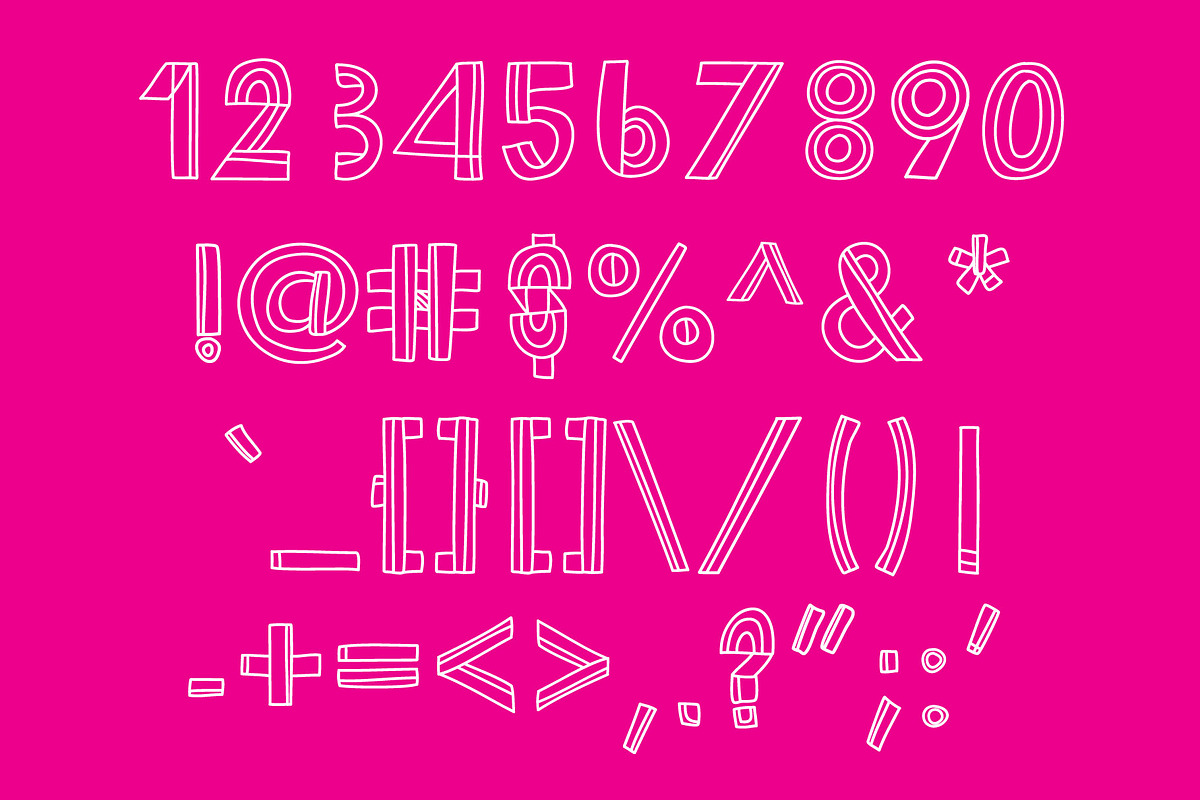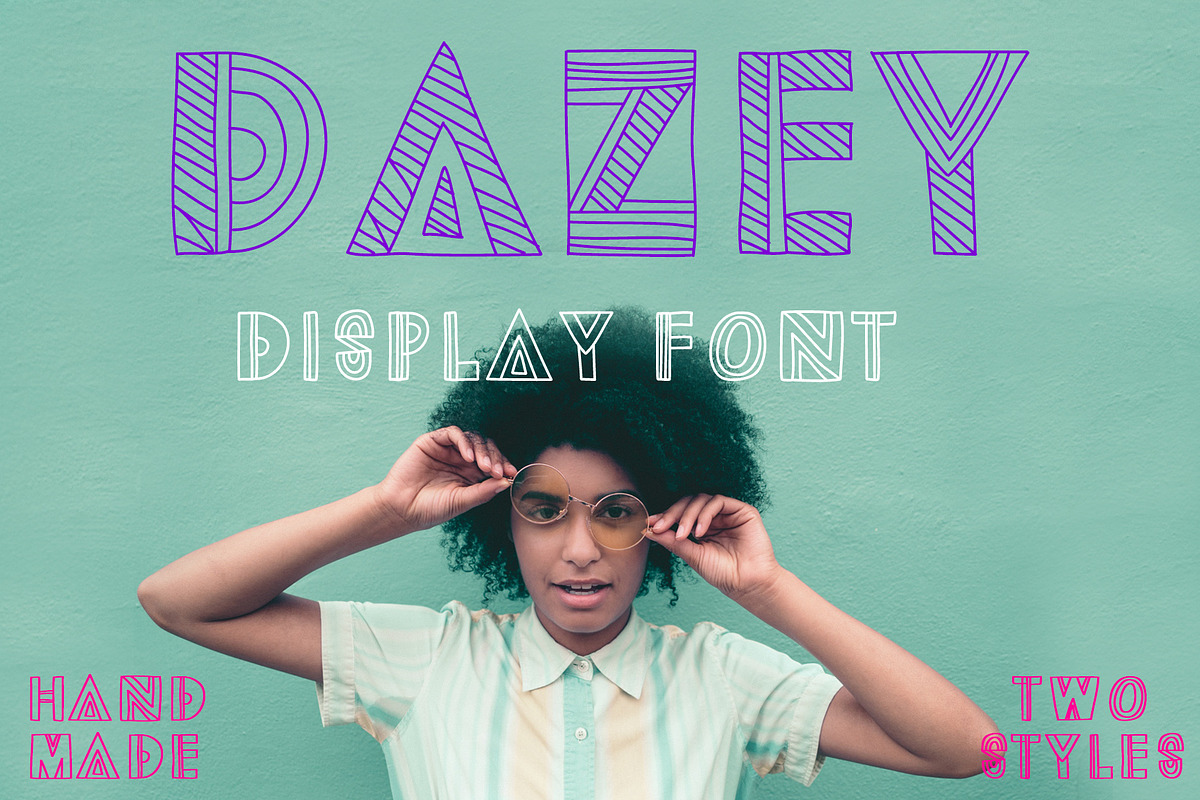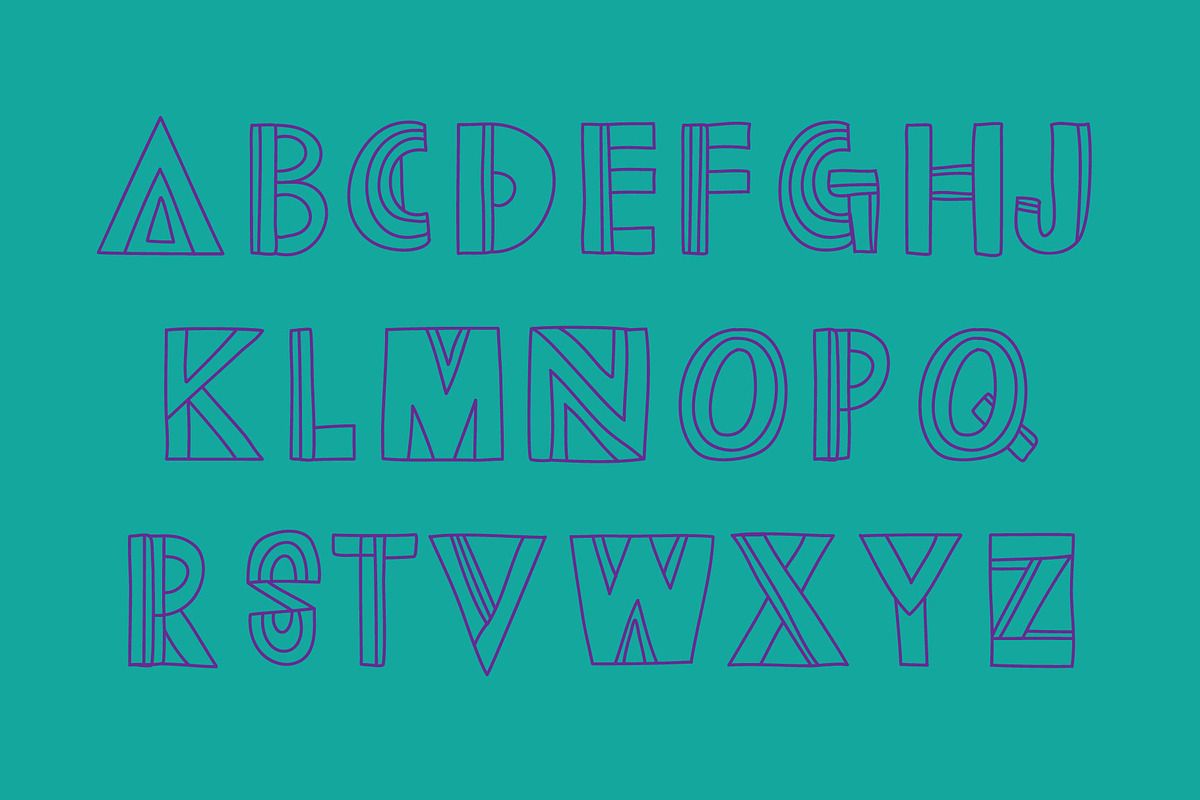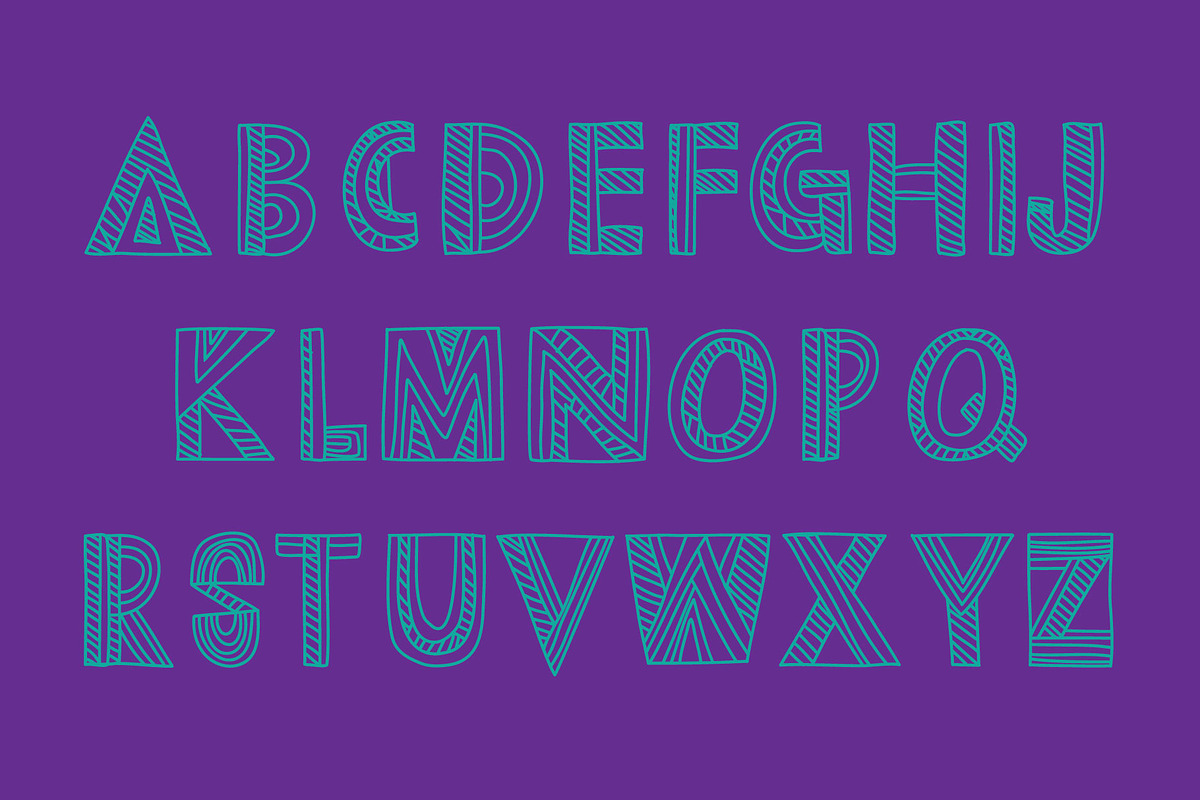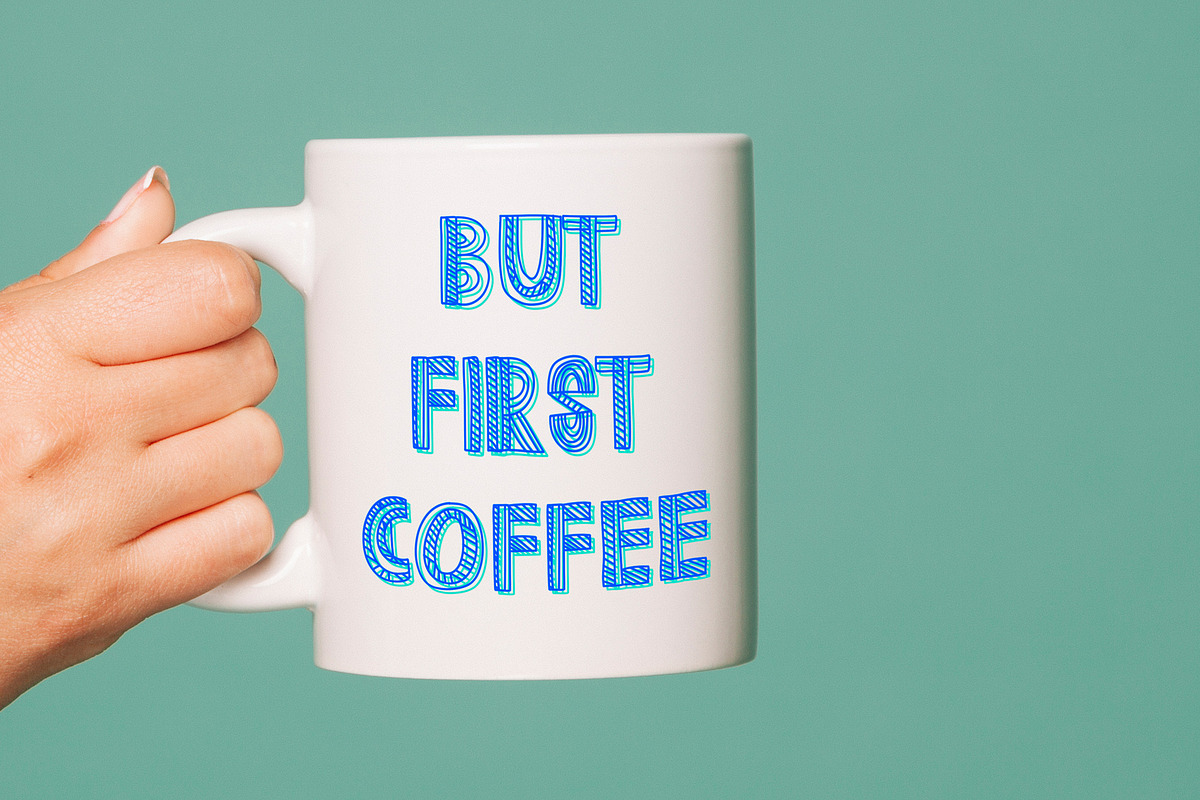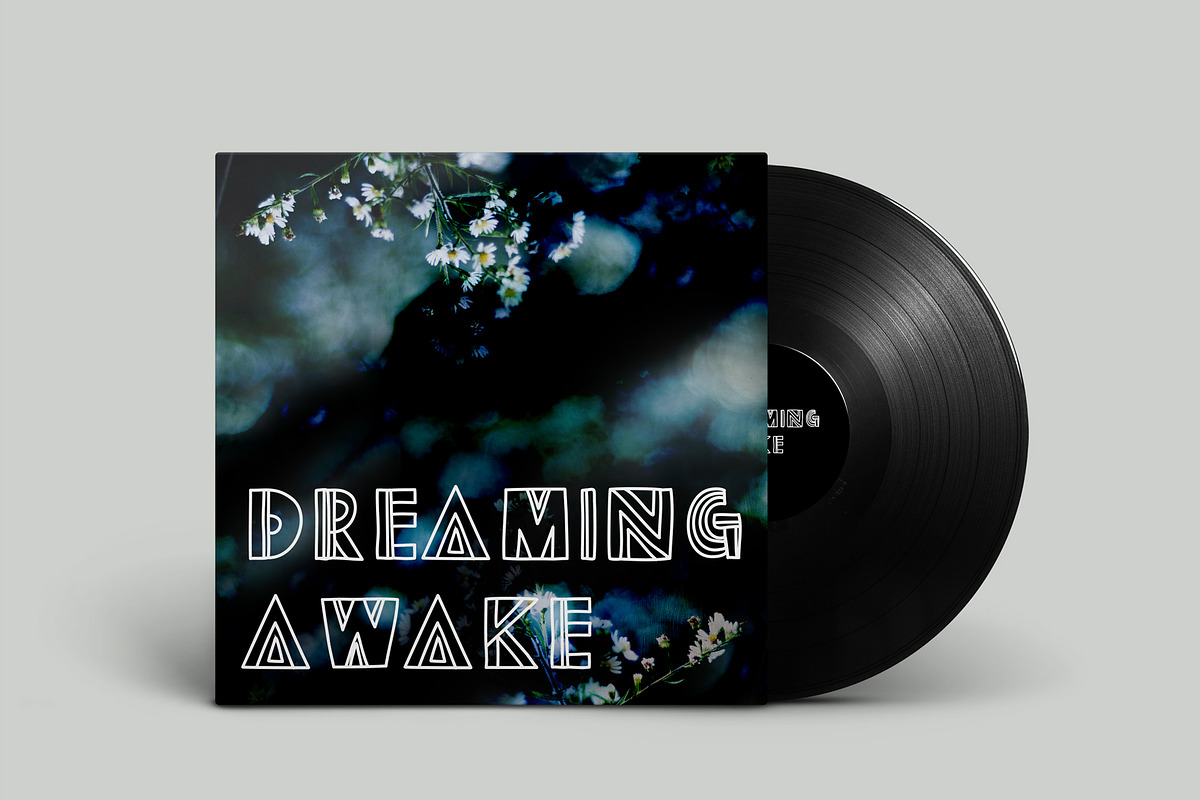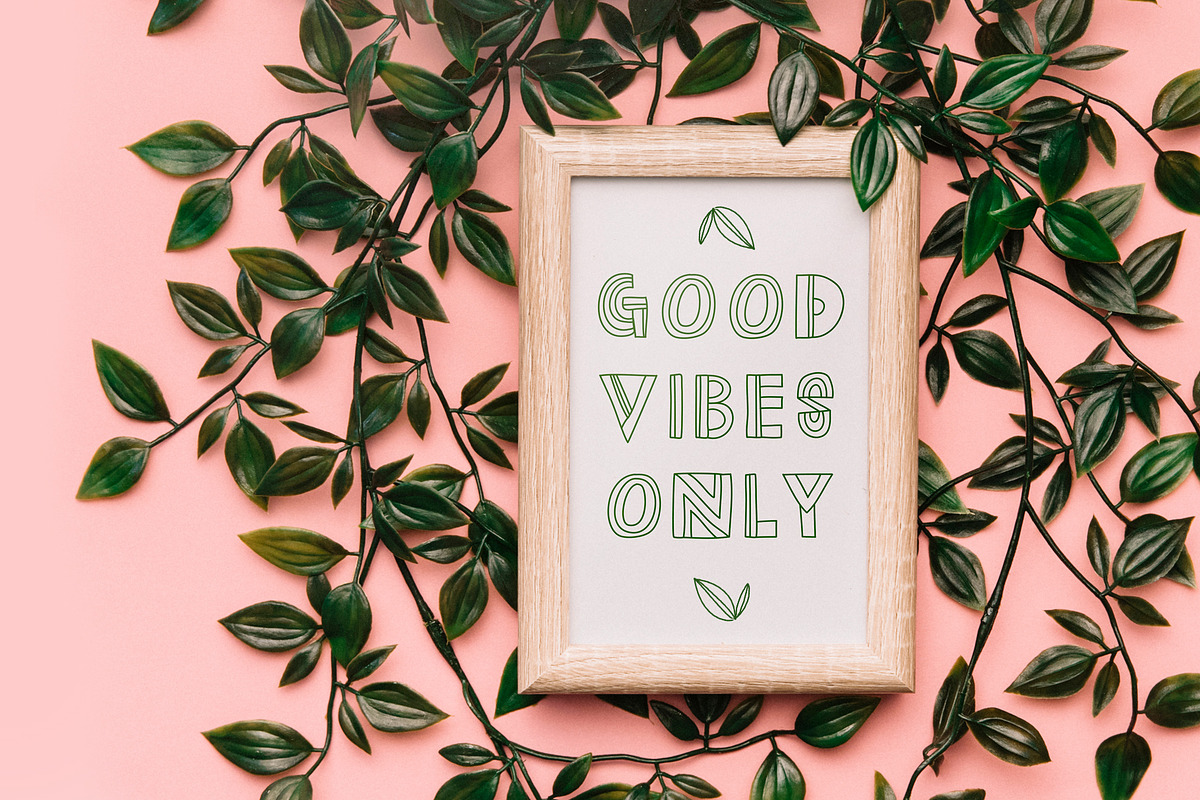
Dazey Display Font
Introducing Dazey: An incredibly detailed and unique, 100% hand drawn display font that is perfect for any bohemian, youthful, fun, or awesome project.
Dazey comes in two variations: Simple Dazey (Capital letters of Dazey.ttf) and Detailed Dazey (Lowercase letters of Dazey.ttf). They can work independently, or together, to create a lasting impression everywhere they're experienced.
From concert posters to logo design, Dazey can be used in so may outstanding ways.
I made this font specifically to HAVE FUN WITH, SO DO IT!